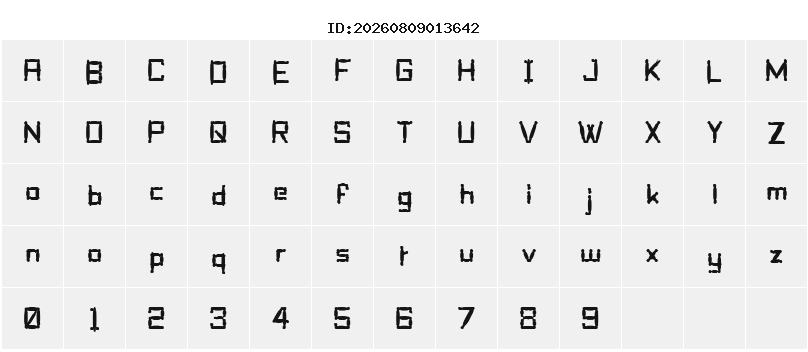
• Font Name: Pillo Talk
• Font ID: Pillo Talk
• Full Font Name: Pillo Talk
• Version: 1 - Incomplete reject
• PostScript Name: PilloTalk
About Pillo Talk.ttf
Pillo Talk.ttf is a modern, elegant sans-serif font designed for ultimate readability and visual harmony. Perfect for branding, headlines, web design, and print materials.